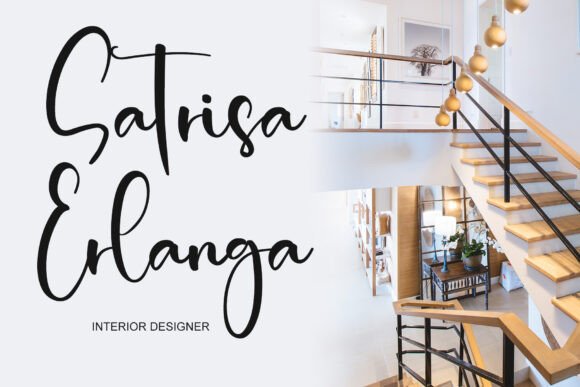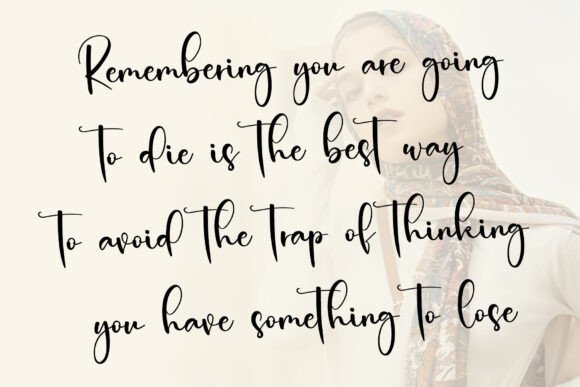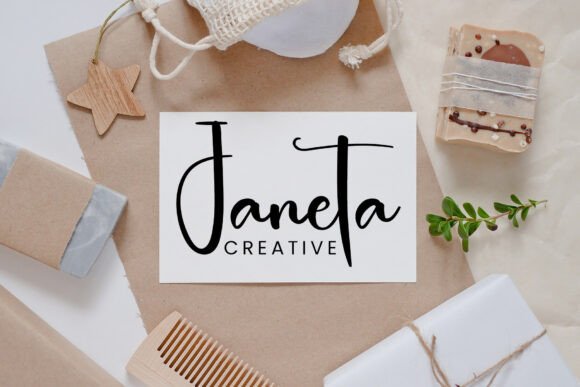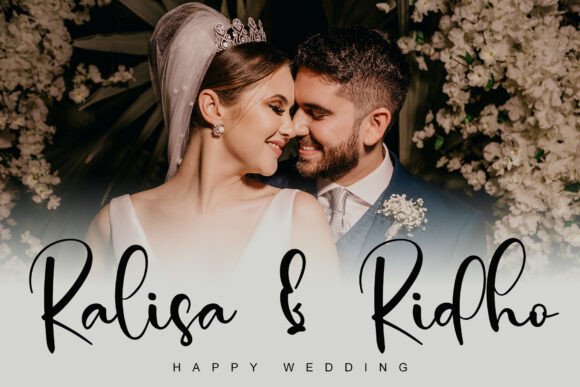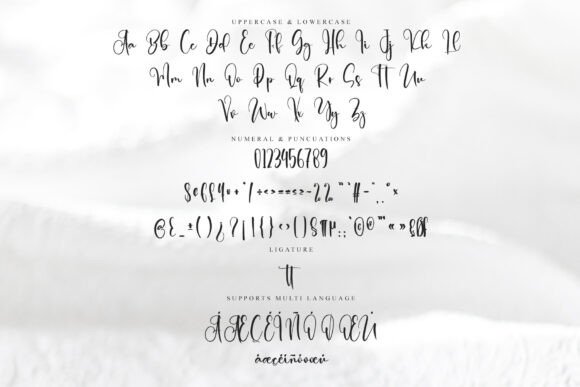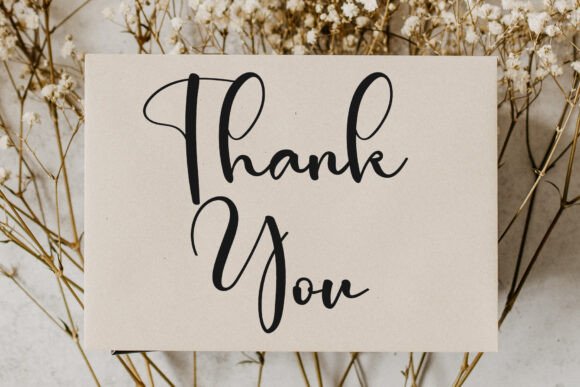
Grateful Sunday Font: Elevate Your Designs with Elegance and Delicacy
In the world of typography, a font can make all the difference in the success of a design project. For designers and crafters seeking an elegant and delicate handwritten typeface, Grateful Sunday Font is an exceptional choice. This beautiful font is perfect for a wide range of design needs, from logos and branding to social media posts, advertisements, business cards, wedding invitations, and product design.
What Makes Grateful Sunday Font Special?
Grateful Sunday Font is a stunning example of a handwritten typeface that exudes elegance and sophistication. Its delicate strokes and refined lines make it an ideal choice for designers who want to add a touch of refinement to their work. Whether you’re creating a logo, branding materials, or social media content, this font is sure to impress.
One of the standout features of Grateful Sunday Font is its PUA (Private Use Area) encoding. This means that you can access all of the glyphs and alternates with ease, giving you greater flexibility and creative control over your designs. With PUA encoding, you can effortlessly switch between different glyphs and alternates to create unique and eye-catching text styles.
Endless Design Possibilities with Grateful Sunday Font
The versatility of Grateful Sunday Font makes it an excellent addition to any designer’s toolkit. Here are just a few examples of the many design projects where this font can shine:
- Social Media Posts: Elevate your social media content with elegant and engaging text that stands out from the crowd.
- Advertisements: Grab attention and drive results with eye-catching ads that feature Grateful Sunday Font.
- Business Cards: Make a professional statement with beautifully designed business cards that reflect your brand’s values and style.
- Wedding Invitations: Add a touch of romance and sophistication to your wedding invitations and stationery.
- Product Design: Create stunning product labels, packaging, and marketing materials that showcase your brand’s personality.
Why Choose Grateful Sunday Font?
With so many fonts available, why choose Grateful Sunday Font? Here are just a few reasons why designers and crafters love this elegant typeface:
- Elegant and Refined: Grateful Sunday Font is perfect for designers who want to add a touch of sophistication to their work.
- Delicate and Handwritten: This font’s delicate strokes and handwritten style make it ideal for creating unique and eye-catching text.
- PUA Encoded: With PUA encoding, you can access all of the glyphs and alternates with ease, giving you greater creative control.
- Versatile: Grateful Sunday Font can be used for a wide range of design projects, from logos and branding to social media posts and product design.